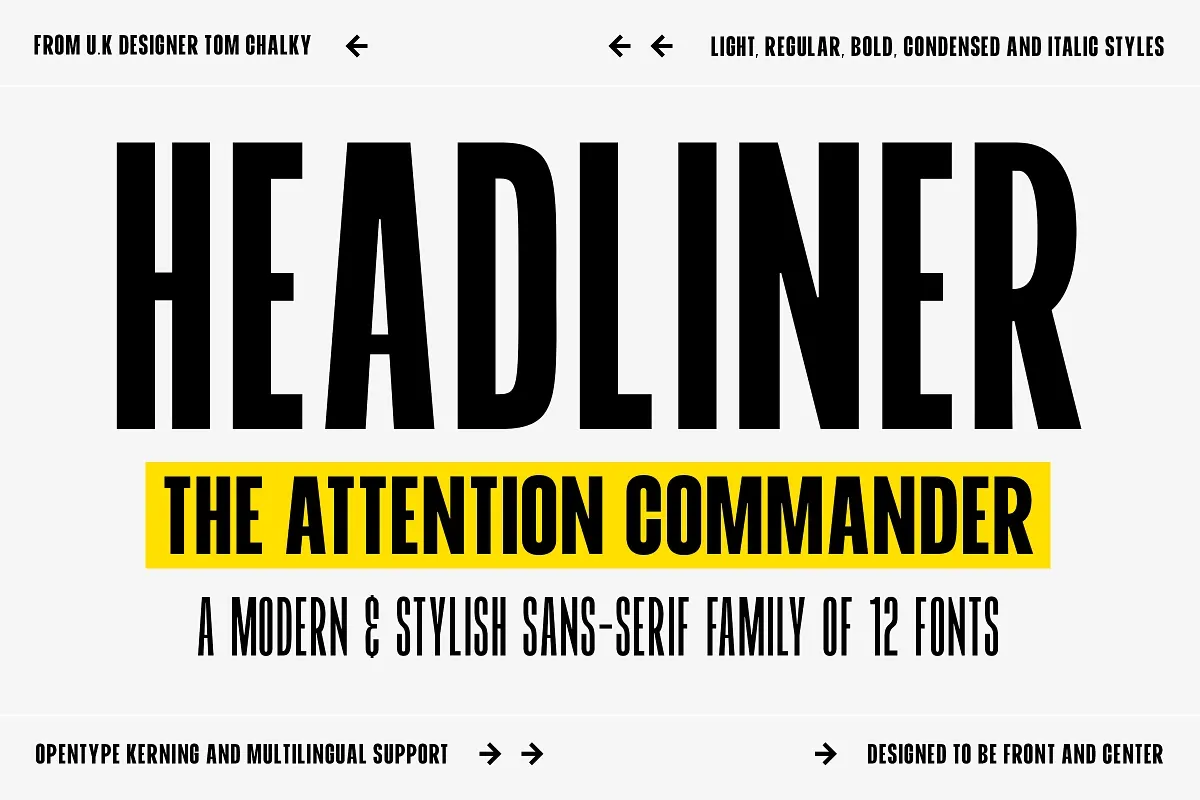
Please note, you must purchase this font for commercial use. However, you can easily download HEADLINER - A Powerful Sans Family Font Free Download for personal use and testing purposes. HEADLINER - A Powerful Sans Family Font is a bold and dynamic sans-serif typeface designed to make a strong impact. With its clean lines and powerful structure, this font is perfect for headlines, logos, branding, posters, and other projects that require attention-grabbing typography. The versatility of HEADLINER - A Powerful Sans Family Font Free Download makes it ideal for both print and digital designs, giving your projects a modern and professional feel. Whether you're creating a modern brand identity or designing promotional material, HEADLINER - A Powerful Sans Family Font Free Download will add strength and clarity to your typography. Download HEADLINER - A Powerful Sans Family Font Free Download today and explore its potential before opting for a commercial license.